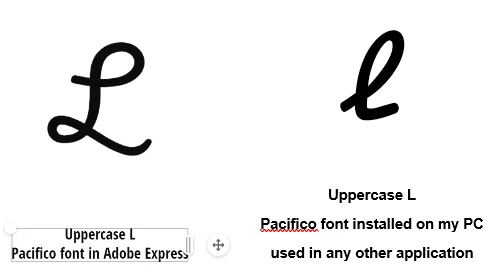
Pacifico font upper case L is different in Photoshop than it is in Adobe Express
I am using the Pacifico regular font in Adobe Express and like it for my application so I wanted to use it in Photoshop too, I downloaded the font from dafont.com, installed it on my PC and it works just fine except I nothicd the uppercase L is differnet and of course the style I prefer is what I see in Adobe Express.
Any ideas on why this is and if there is a remedy?
Sometimes fonts are redesigned over time. I might normally suggest contacting the font maker, but here we find a tragedy. Vernon Adams, who designed many fonts for Google Fonts, sadly died around 2016. (#sansoxygen | vernon adams) [fundraiser for his family included]
Looking deeper, therefore, I think that the font was probably revised after the download provided by dafont.com. The font (at least, one weight of it) found on Google Fonts seems to have the "L" you wanted. Google Fonts allow downloads, unlike Adobe Fonts.